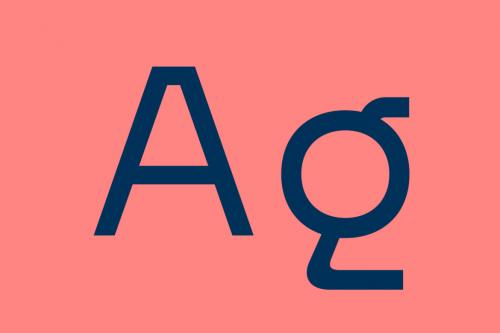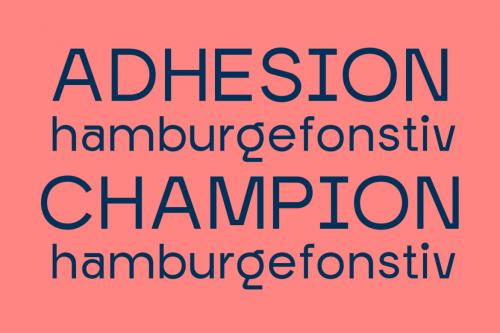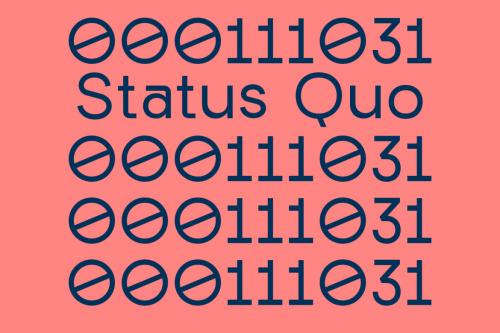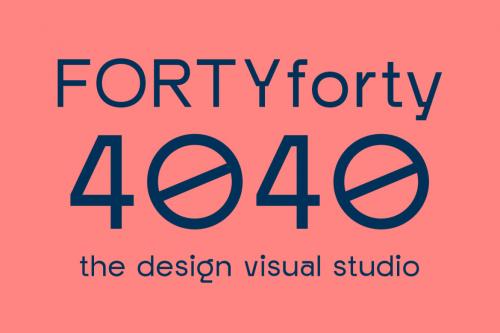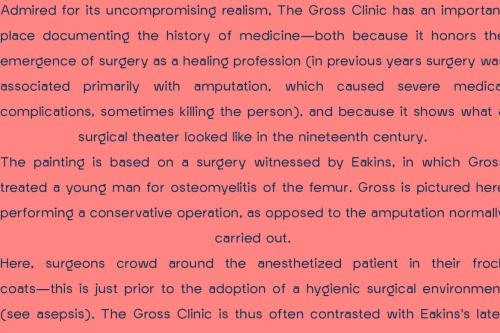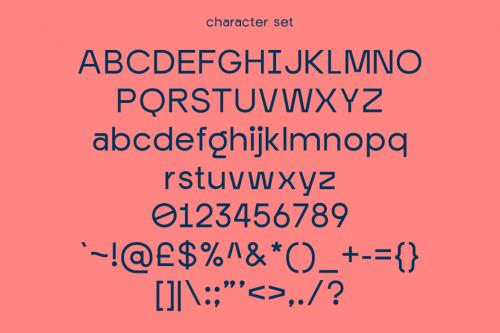
Morgaty is a modern fun sans serif font. With medium low contrast stroke, fun character with a bit of ligatures and alternates. To give you an extra creative work. Morgaty font support multilingual more than 100+ language. This font is good for logo design, Social media, Movie Titles, Books Titles, a short text even a long text letter and good for your secondary text font with script or serif. Make a stunning work with Morgaty font.